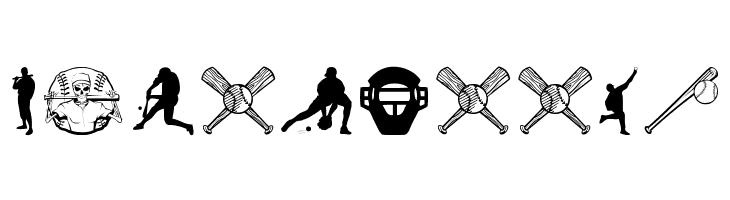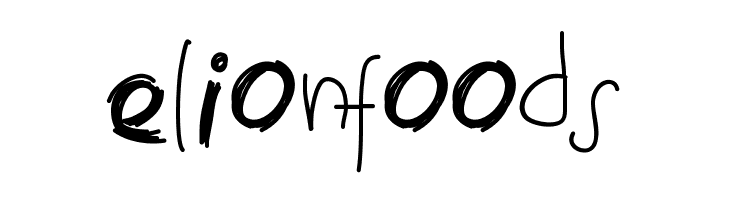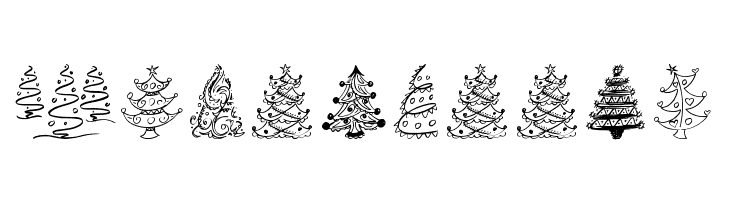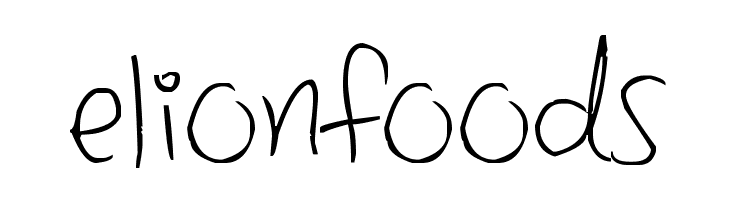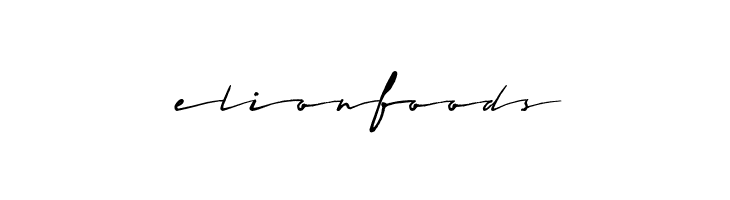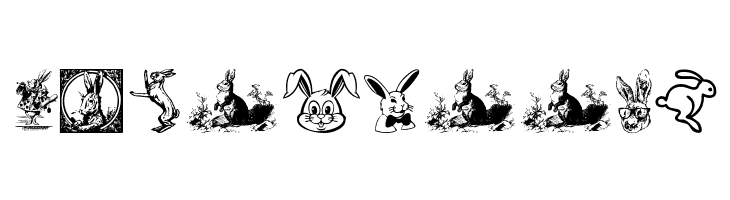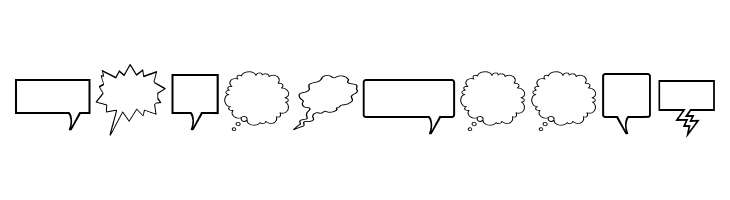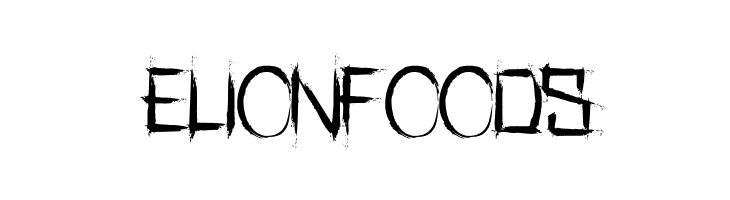
A decorative icon set themed around baseball.
A playful, hand-drawn font with irregular, dynamic strokes.
Hand-drawn, whimsical Christmas tree illustrations with playful details.
A hand-drawn, casual font with an organic and lively appearance.
A playful, handwritten font with a casual and dynamic style.
A flowing, cursive font with elegant, elongated letterforms and a handwritten appearance.
A playful decorative font of assorted rabbit and bunny illustrations.
Outlined comic speech and thought bubbles in diverse shapes.
A jagged, distressed font ideal for horror themes.